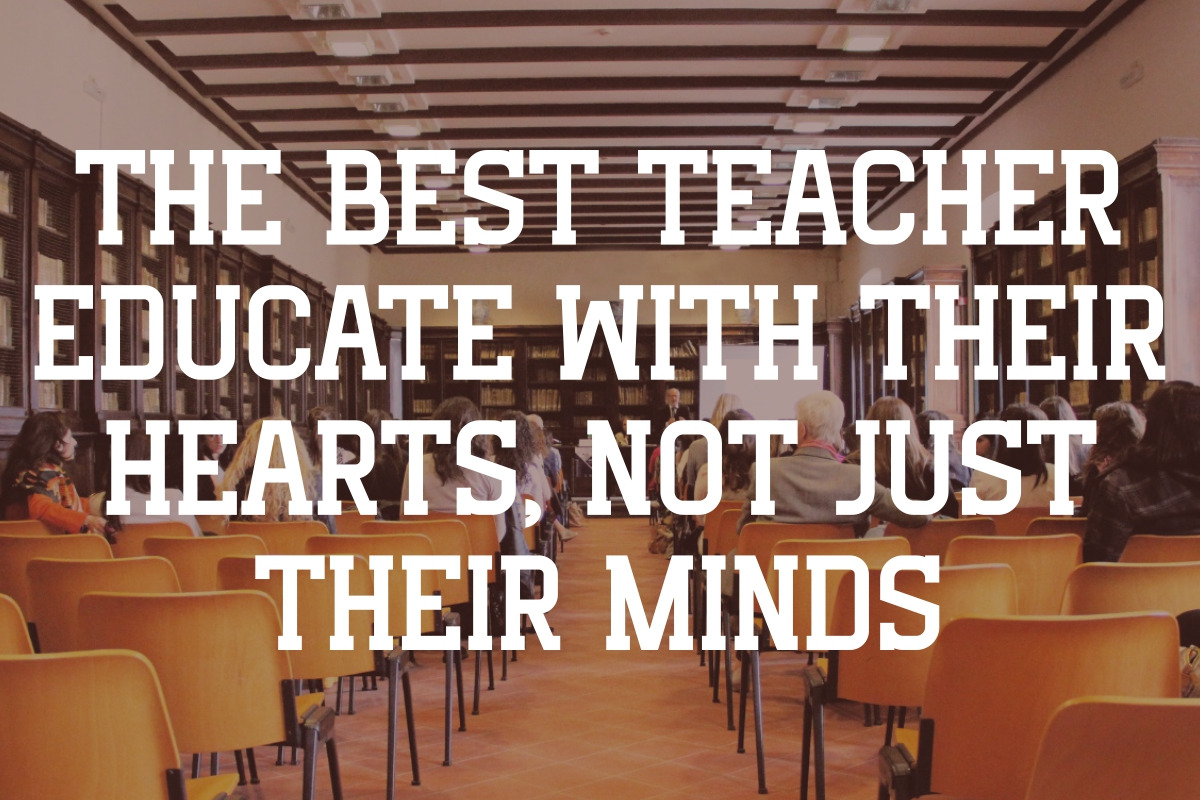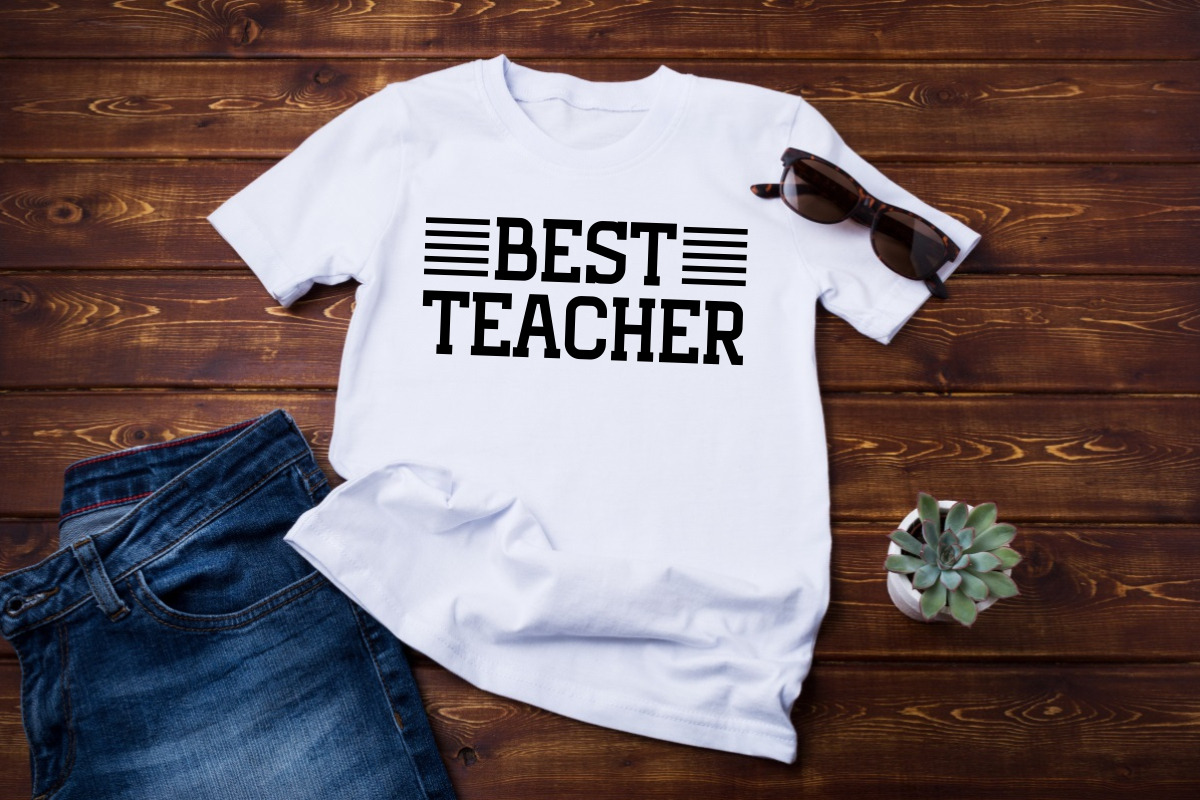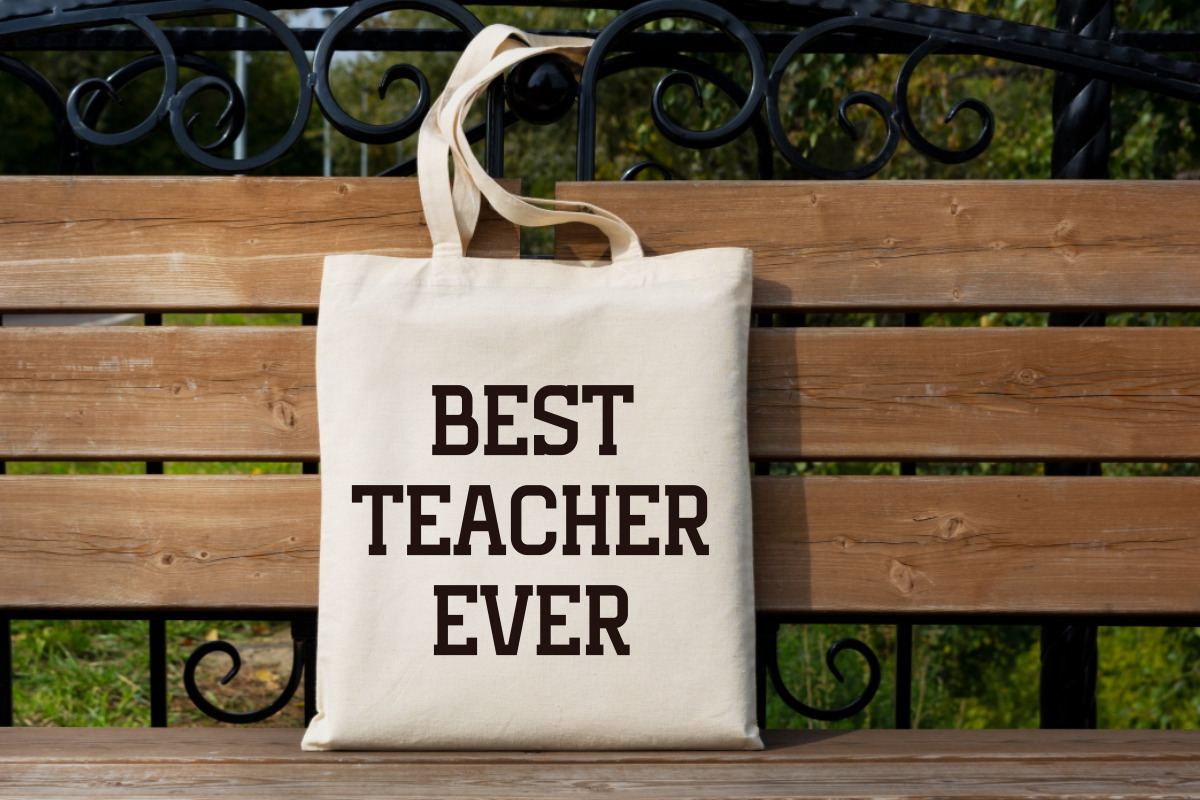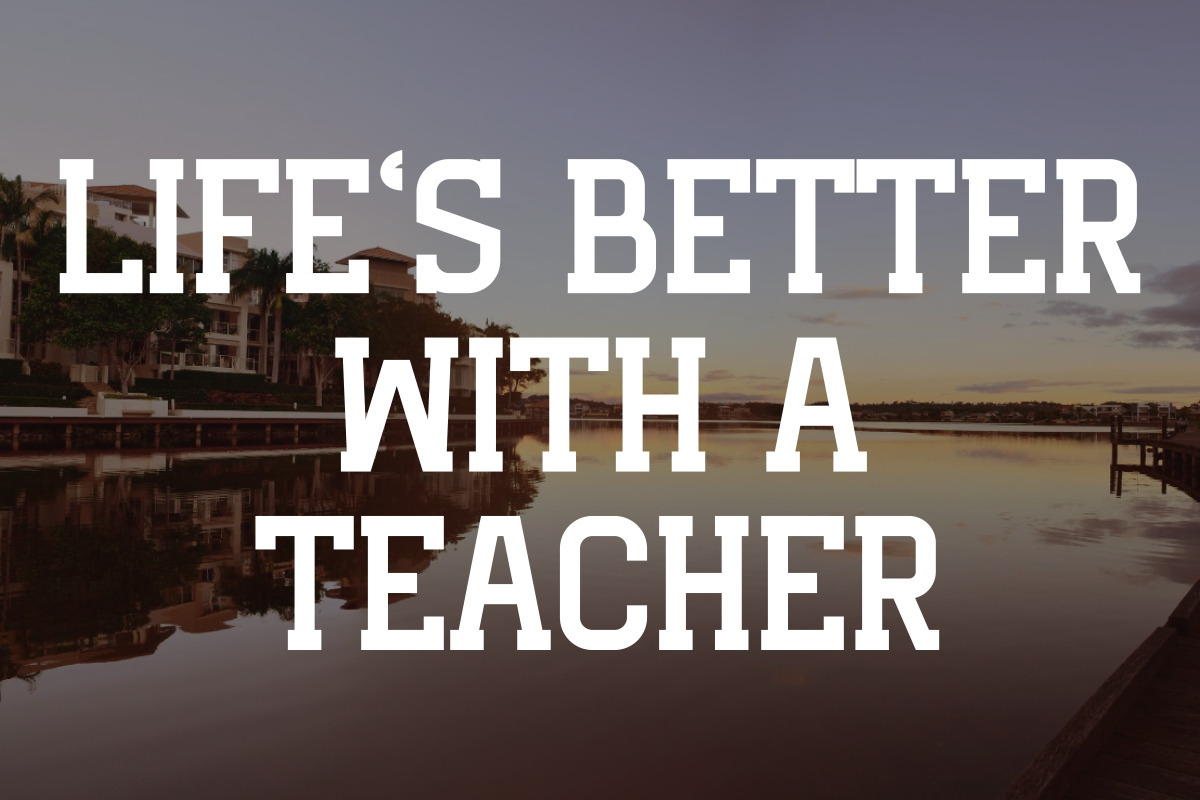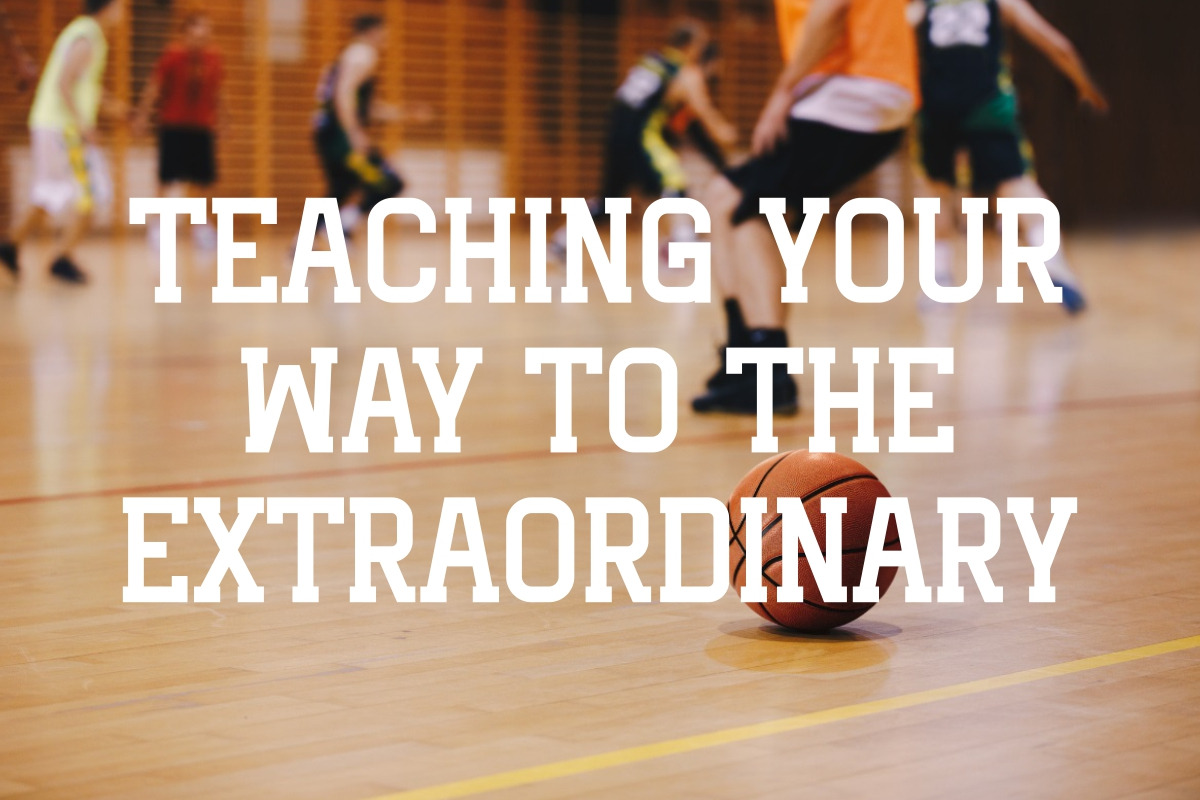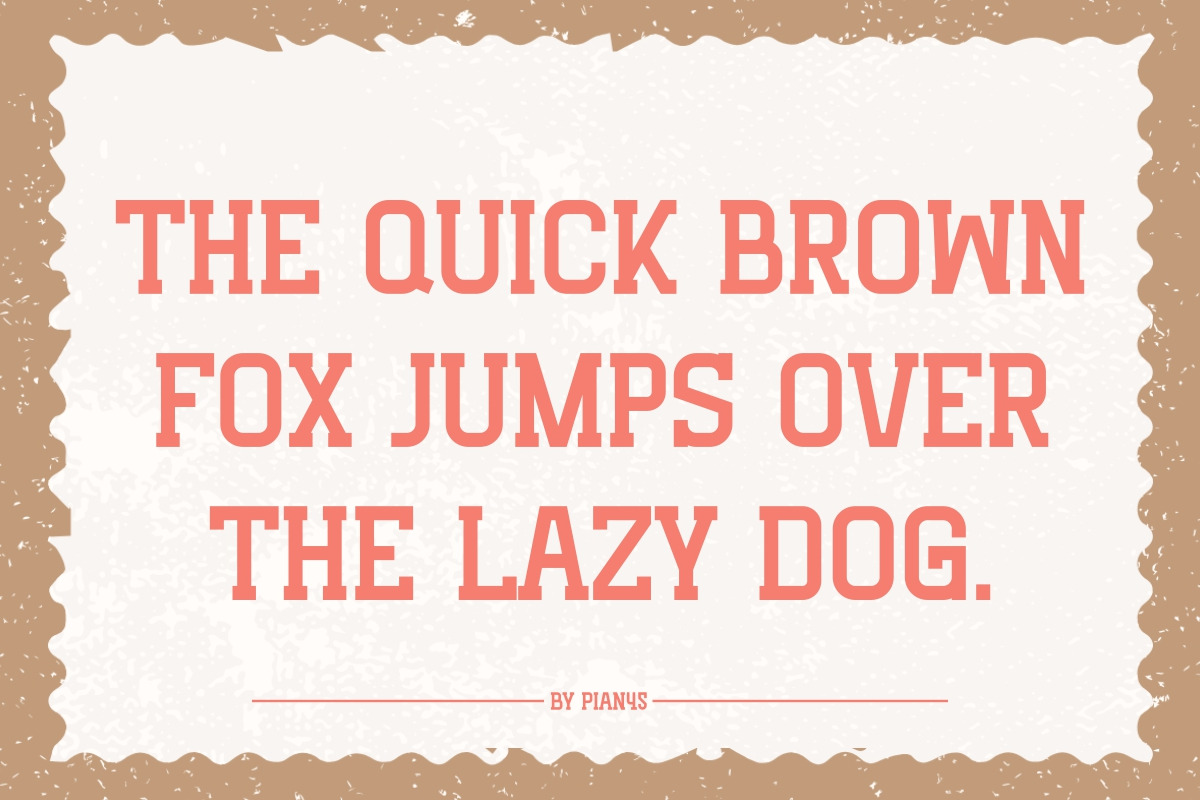
Teacher Varsity - Vintage Slab Serif
Teacher Varsity is a vintage slab serif font that is clean, bold, and perfect wide range of design applications. Teacher Varsity brings a touch of classic elegance and strong presence to any project. Perfect for quotes, posters, backgrounds, t-shirts, mugs, tote bags, and sport apparel.